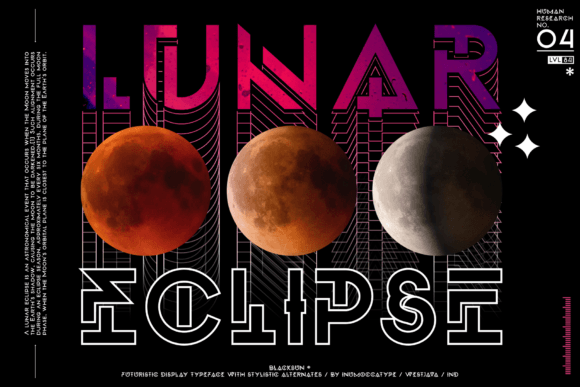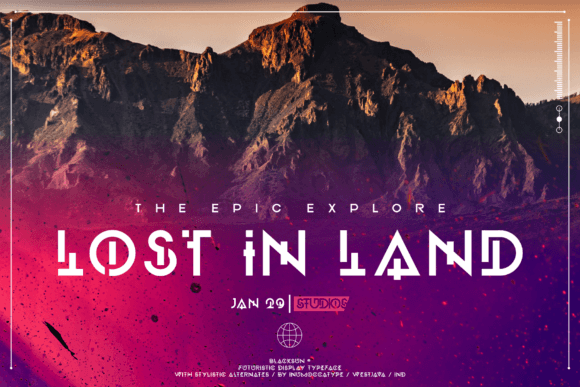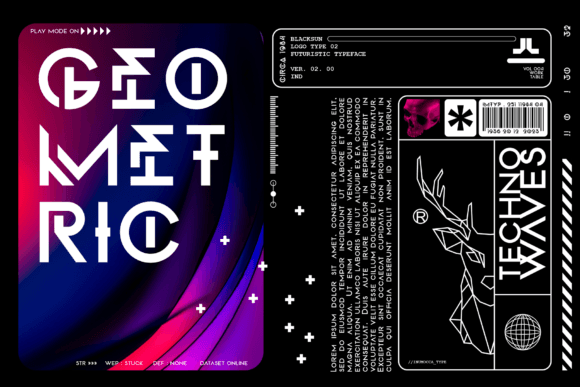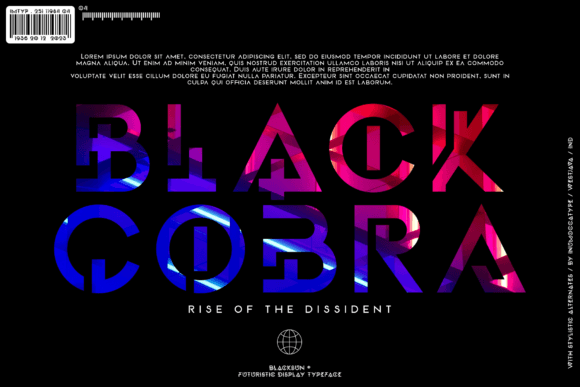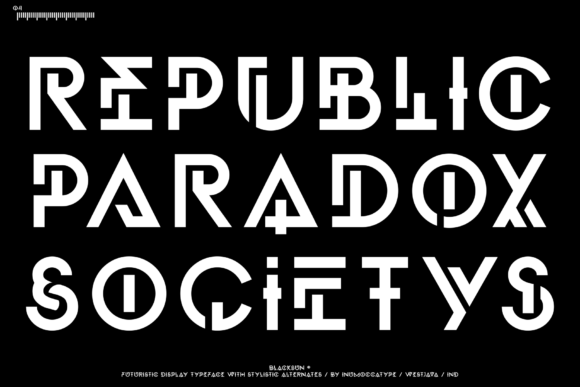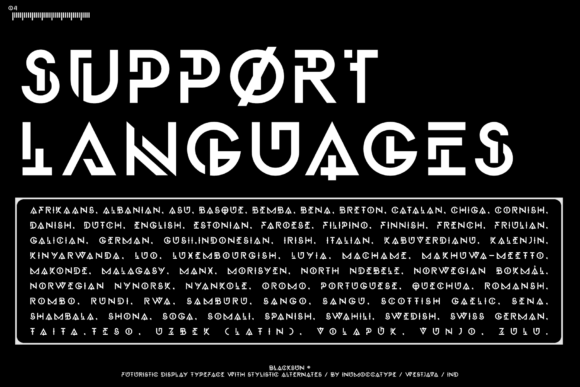
Unlocking the Cosmic Potential of BlackSun Font
Have you ever been working on a project and suddenly, the right font appears out of nowhere, elevating your design to new heights? That’s exactly what happened to many designers when they discovered the BlackSun Font. This futuristic display font is more than just a pretty face – it’s a powerful tool that can transport your audience to a world of sci-fi wonder.
With its simple, strong, and eye-catching characters, BlackSun Font is the perfect companion for designers looking to create modern, high-tech designs that scream innovation. Whether you’re working on a synth-wave music project, a science fiction movie poster, or a futuristic website interface, this font is sure to make a lasting impression. As a valuable addition to any designer’s toolkit, BlackSun Font is a must-have for anyone looking to push the boundaries of creative expression.
- Font Family: Blacksun Font is a sans-serif font family that includes multiple styles, ranging from thin to bold.
- Character Set: Supports a wide range of languages, including Latin, Cyrillic, and Greek alphabets, with over 1,000 glyphs.
- Unique Characteristics: Blacksun Font features a distinctive, futuristic design with geometric shapes and a minimalist aesthetic, making it ideal for modern and tech-related projects.
Blacksun Font Review
I recently had the chance to work with the Blacksun font, and I must say it’s a unique and attention-grabbing choice for any design project. ✨ The font’s bold, sans-serif aesthetic makes it perfect for titles and headings, and its clean lines ensure it doesn’t feel overwhelming even in larger sizes.
One of the standout features of Blacksun is its versatility. ✨ It’s available in a range of weights, from light to bold, making it easy to match the font to your design’s tone and style. The font also includes a range of ligatures and swashes, which can add an extra layer of sophistication to your designs.
- ⚠️ The font may not be suitable for body text, as its bold aesthetic can be tiring to read in larger quantities.
- ⚠️ The font’s unique design may not be to everyone’s taste, and it may not be the best choice for projects that require a more subtle approach.
Overall, I was impressed with the Blacksun font’s potential and flexibility. ✨ It’s a great choice for designers looking to add a touch of modernity and sophistication to their projects. However, it’s not a one-size-fits-all solution, and designers should carefully consider whether it’s the right fit for their specific project needs.
Getting the Most Out of Blacksun Font
To get the most out of Blacksun Font, use it for titles, headings, and other text elements where you want to create a bold and modern look. You can also pair it with other fonts to create a unique and eye-catching design.
Blacksun Font is commonly used for:
- Modern business cards and brochures
- Minimalist website designs
- Graphic design projects that require a bold and modern look
Alternatives to Blacksun Font
Open Sans is a modern sans-serif font designed by Steve Matteson. It is highly legible and versatile, making it suitable for a wide range of applications, including digital interfaces, print materials, and signage.
Open Sans is more humanist in style, whereas Blacksun Font is more geometric. Open Sans is a great choice for body text, while Blacksun Font is often used for headlines or titles.
Montserrrat is a sans-serif font inspired by the urban environment of the Montserrat neighborhood in Buenos Aires. It features a geometric, urban feel with a strong emphasis on horizontal lines.
The Blacksun Font is available in OpenType (.otf) and TrueType (.ttf) formats. It includes 6 weights (Light, Regular, Medium, Bold, Extra Bold, and Black) and supports a wide range of languages, including Latin, Cyrillic, and Greek. The font is designed for use at font sizes ranging from 8 to 72 points and is optimized for on-screen use at resolutions up to 300 DPI.